Title: The Forbidden Typeface: Unveiling the Untold Dangers of the Cursed Font
Introduction:
In the vast realm of graphic design, fonts hold immense power, capable of conveying emotions, enhancing branding, and shaping perceptions. However, the world of typography harbors a dark side that few designers dare to explore. Join us as we delve into the captivating yet treacherous realm of the forbidden typeface that poses a threat to the unsuspecting graphic designer. Brace yourself for an eye-opening journey into the unknown as we unravel the mysteries surrounding this danger font.
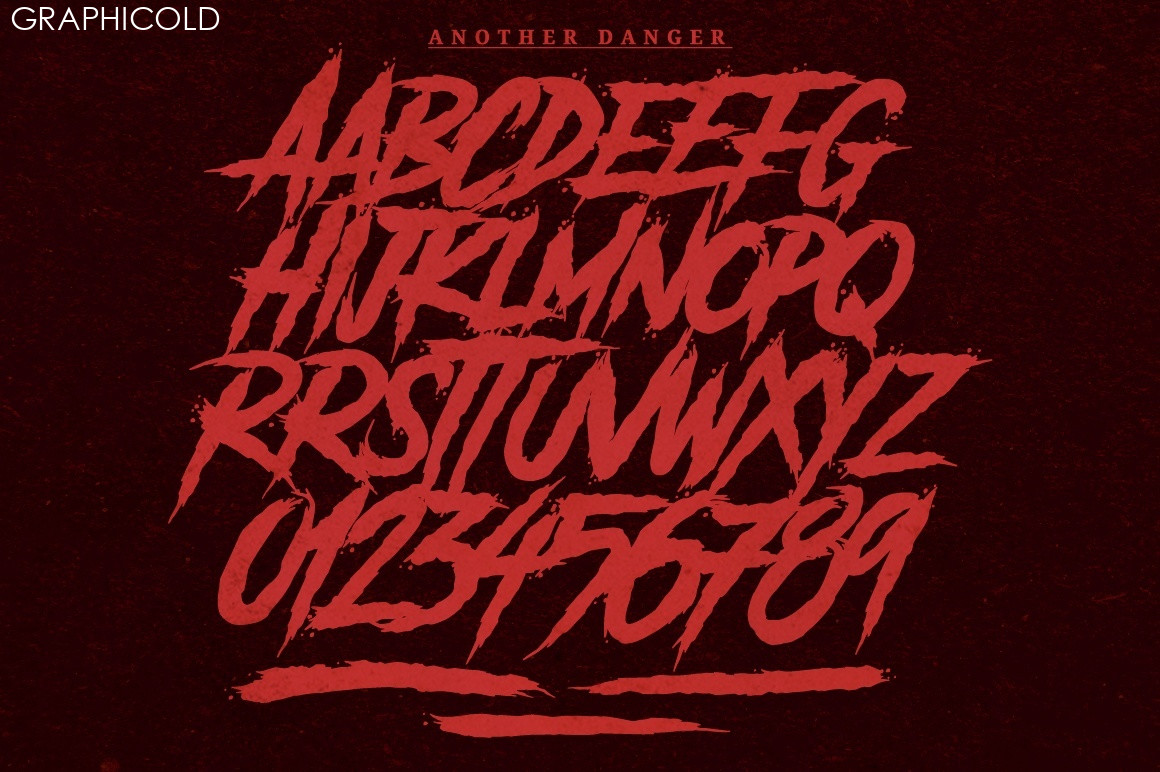
1. The Haunting Origins:
Legend has it that this cursed font was forged in the darkest corners of the design underworld. Its origins can be traced back to an enigmatic typographer who sought to create the ultimate typeface. Little did they know that their creation would become a font synonymous with chaos and misfortune. Dive into the chilling tale of how this dangerous font was born, shrouded in secrecy and imbued with an otherworldly aura.
2. The Sinister Influence:
Step into the shoes of those unfortunate souls who have encountered this malevolent typeface. Terrifying stories abound of designers who unwittingly stumbled upon it, only to face inexplicable design disasters. Explore real-life accounts of professionals whose work was tarnished by the dark influence of this danger font. From distorted layouts to inexplicable glitches, witness the havoc it has wreaked on the graphic design community.
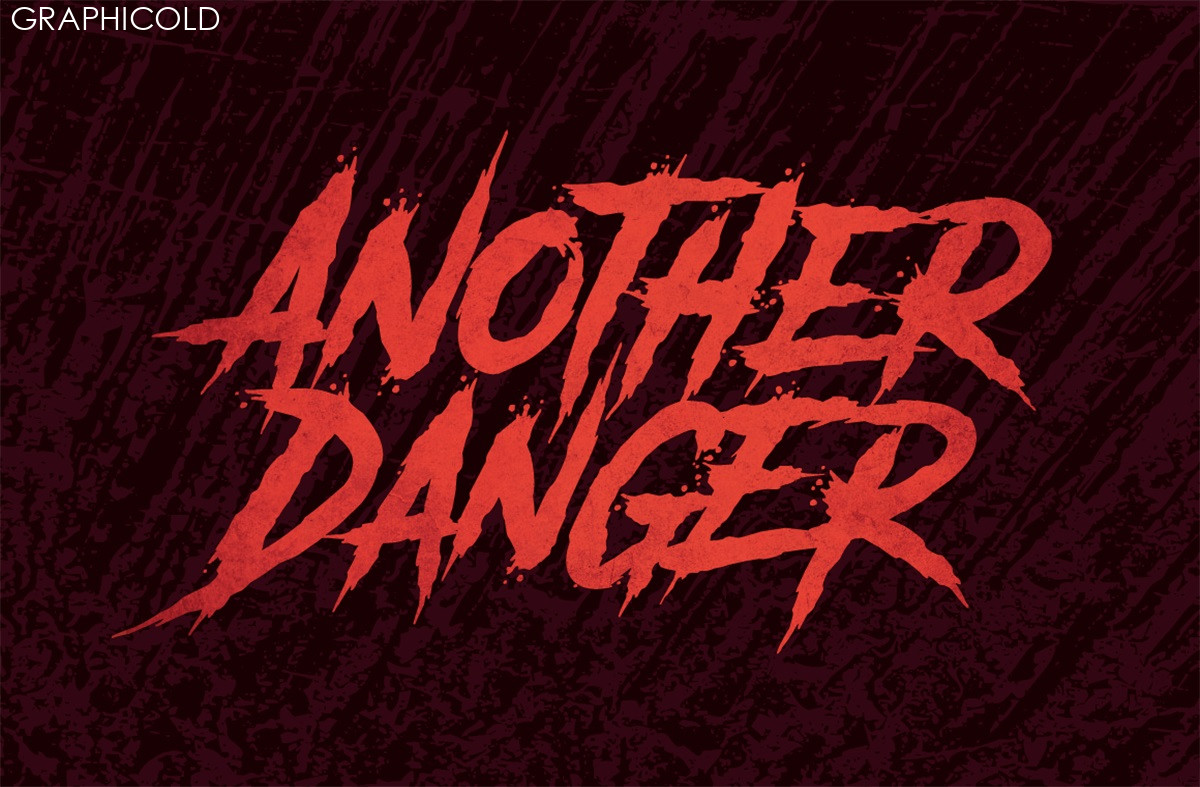
3. The Curse Unveiled:
What makes this forbidden font so perilous? Unravel the curse that lingers within its crisp lines and elegant curves. Expert typographers and designers share their insights, shedding light on the hidden dangers that lie within this seemingly innocuous typeface. Gain a deeper understanding of the intricacies that make this font an unprecedented threat to all who dare to use it.
4. The Warning Signs:
Spotting the warning signs of this treacherous font could save your design from impending doom. Discover the telltale characteristics that often accompany this danger font, including erratic kerning, unpredictable line breaks, and unsettling letterforms. Arm yourself with knowledge to recognize and avoid this perilous typeface before it consumes your work.
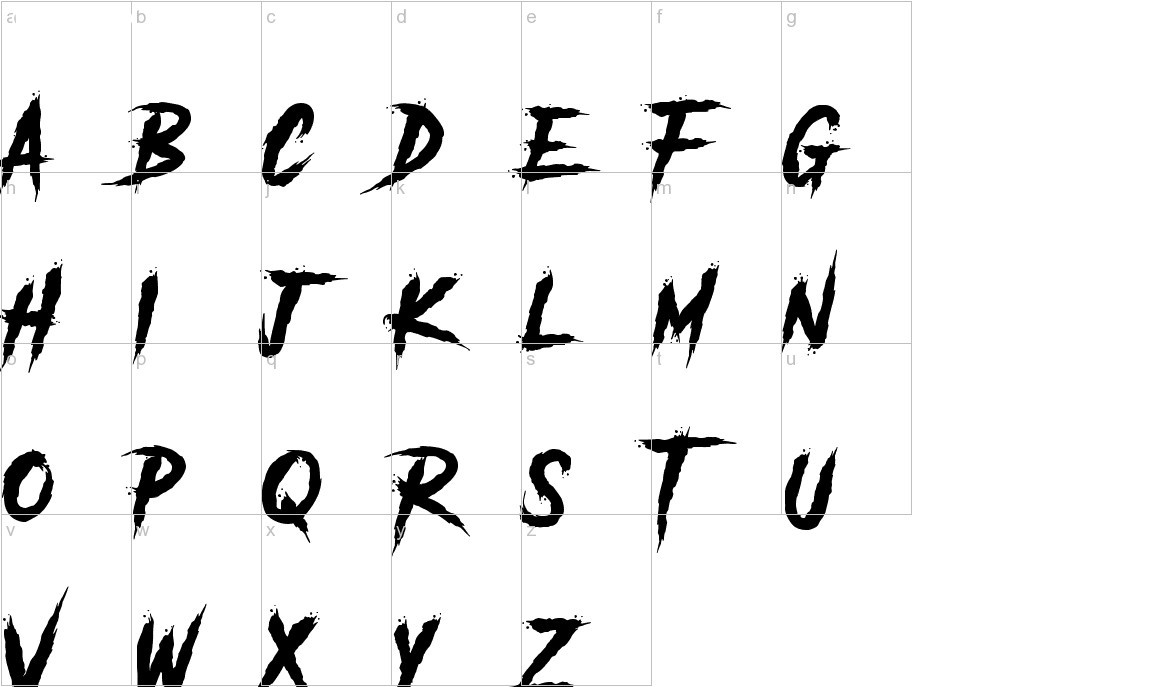
5. Breaking the Spell:
Is there a way to rid oneself of this font’s curse once it has infiltrated a design? Explore the desperate attempts made by designers to break free from its malevolent grasp. Uncover various techniques and countermeasures that have been employed to banish this danger font from the creative realm. Learn from the experiences of those who triumphed over adversity and emerged stronger, with their designs intact.
Conclusion:
Graphic design is a realm of boundless creativity and inspiration, but it also hides dangers that lurk in the shadowed corners. The forbidden typeface we’ve explored poses a risk to even the most seasoned designers. By understanding its origins, recognizing its warning signs, and learning from those who have encountered its curse, we can navigate this treacherous terrain with caution. Let this cautionary tale serve as a reminder to tread carefully when venturing into the world of typography, for even the most beautiful fonts can carry a hidden danger.